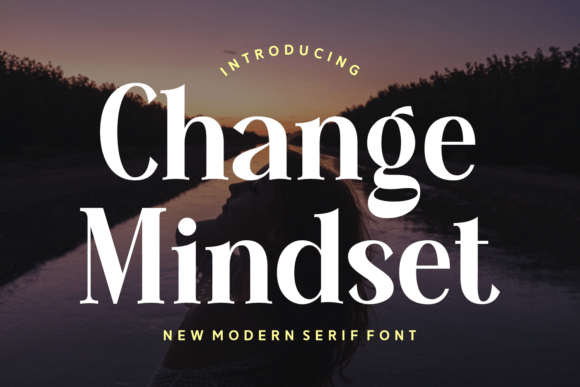
Change Mindset Font: A Modern Serif Font for the Inspired
In the world of typography, fonts play a crucial role in conveying messages, expressing emotions, and creating a lasting impression. Among the numerous fonts available, the Change Mindset Font stands out as a modern serif font that embodies the spirit of inspiration and thoughtfulness. In this article, we’ll explore the features, benefits, and uses of the Change Mindset Font, as well as the significance of an introductory image that perfectly complements its name and style.
What is Change Mindset Font?
The Change Mindset Font is a modern serif font designed to evoke a sense of inspiration, motivation, and positivity. Its elegant and refined style makes it perfect for a wide range of applications, from editorial design to digital media. The font’s name, “Change Mindset,” reflects its purpose: to encourage users to adopt a fresh perspective, think differently, and approach life with a renewed sense of enthusiasm.
The Power of an Introductory Image
An introductory image for the Change Mindset Font is more than just a visual representation; it’s a thoughtful creation that sets the tone for the font’s personality and aesthetic. The image features a serene and contemplative background that perfectly complements the font’s modern, elegant style. The inspirational and thoughtful mood of the image invites users to explore the font’s capabilities and experience its emotional resonance.
The introductory image serves several purposes:
- It creates a lasting first impression, drawing users into the world of Change Mindset Font.
- It communicates the font’s personality, tone, and style.
- It provides a visual representation of the font’s potential uses and applications.
Key Features of Change Mindset Font
The Change Mindset Font boasts several key features that make it an attractive choice for designers and typographers:
- Modern Serif Design: The font’s modern serif design ensures a clean, elegant, and sophisticated look.
- Legibility: The font’s carefully crafted letterforms provide excellent legibility, making it suitable for body text and headlines.
- Versatility: The Change Mindset Font is designed to be versatile, working seamlessly across various mediums, from print to digital.
- Emotional Resonance: The font’s thoughtful and inspirational design evokes emotions, creating a deep connection with readers.
Uses and Applications of Change Mindset Font
The Change Mindset Font is suitable for a wide range of applications, including:
- Editorial Design: The font’s elegant style makes it perfect for magazines, newspapers, and books.
- Digital Media: The font’s legibility and versatility ensure it works well for websites, blogs, and social media.
- Branding and Advertising: The font’s inspirational and thoughtful design makes it ideal for branding, advertising, and marketing materials.
- Packaging and Label Design: The font’s modern serif design and legibility make it suitable for packaging and label design.
Tips for Effective Use of Change Mindset Font
To get the most out of the Change Mindset Font, consider the following tips:
- Pair with complementary fonts: Combine the Change Mindset Font with complementary fonts to create visual interest and hierarchy.
- Use font sizes effectively: Balance font sizes to create a clear visual hierarchy and ensure legibility.
- Experiment with colors: Try different color schemes to enhance the font’s emotional resonance and create a unique visual identity.
The Change Mindset Font is a modern serif font designed to inspire and motivate. Its elegant style, legibility, and versatility make it perfect for a wide range of applications. The introductory image for the font perfectly complements its name and style, setting the tone for a thoughtful and inspirational design experience. By understanding the font’s features, uses, and applications, designers and typographers can unlock the full potential of the Change Mindset Font and create stunning visual content that resonates with audiences.